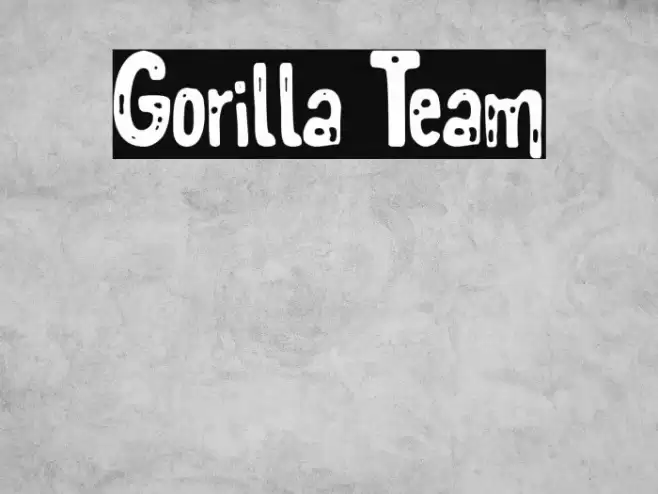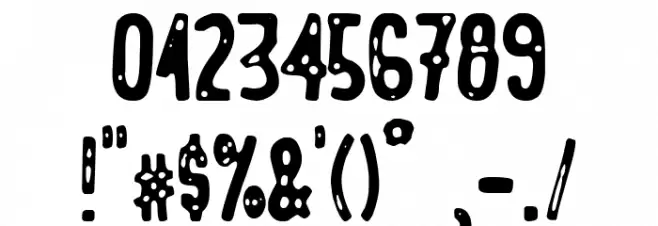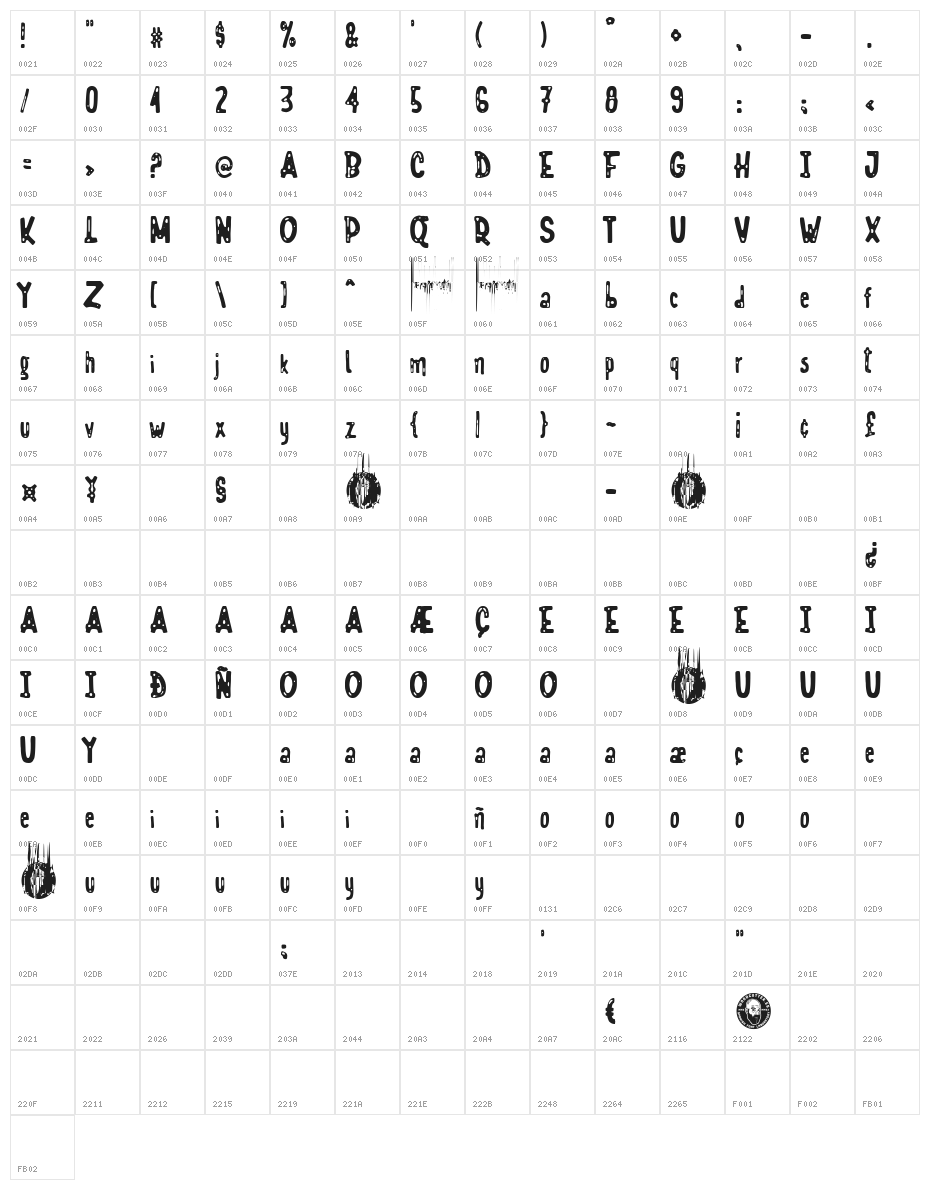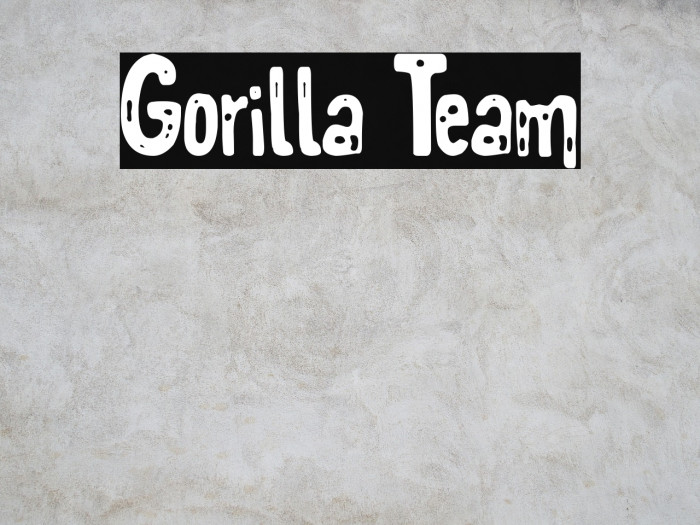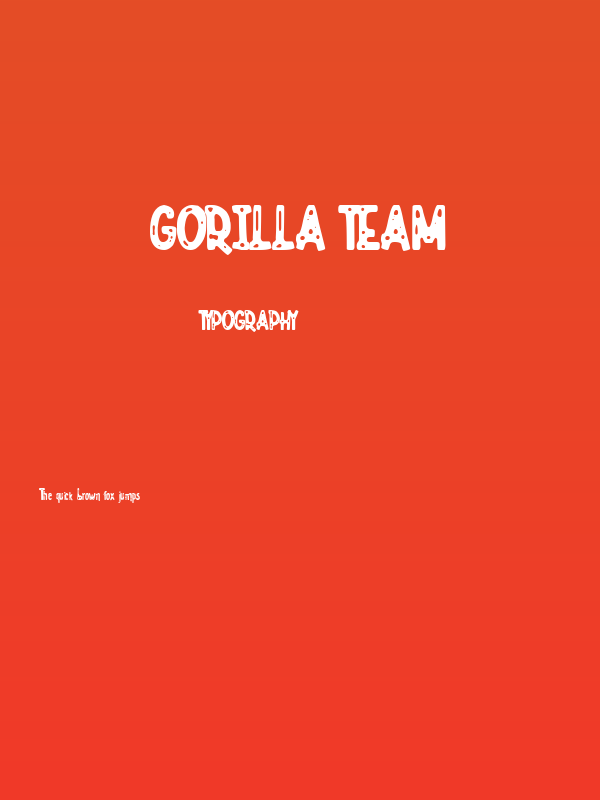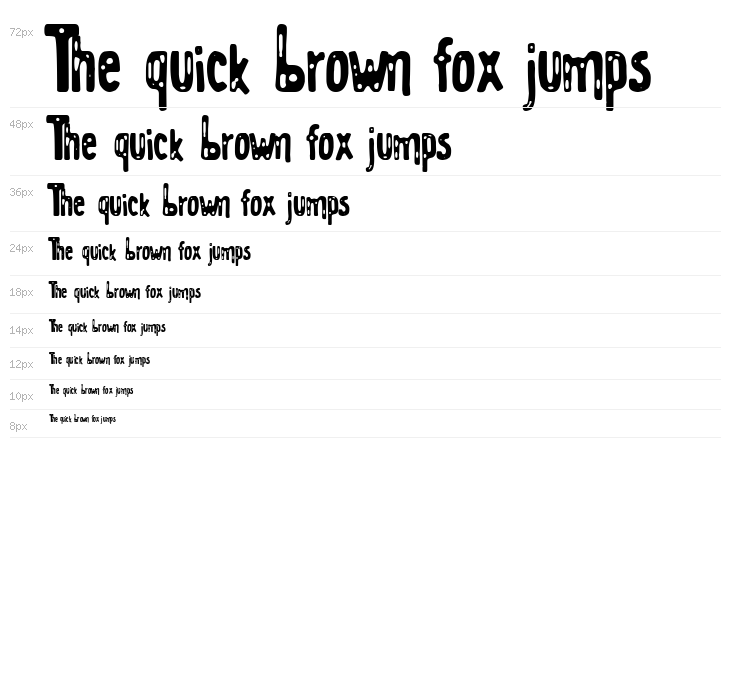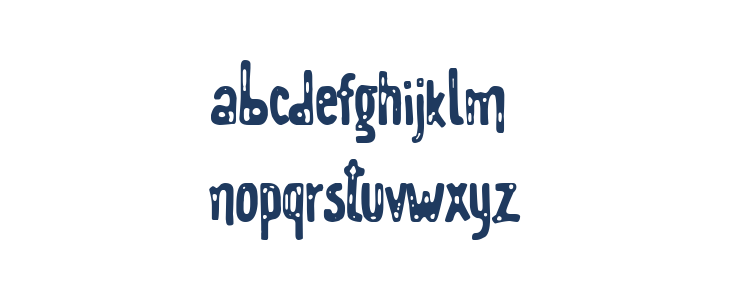
Gorilla Team Font
Gorilla Team Description
This font features a bold and playful design with a unique, organic feel. The letters are characterized by irregular, rounded shapes and a bubbly appearance, giving them a whimsical and fun vibe. The font includes both uppercase and lowercase letters, numbers, and a variety of special characters. The strokes are thick and consistent, with a low contrast between thick and thin parts. The overall style is decorative and eye-catching, making it suitable for creative and informal projects.
A bold, playful font with a whimsical, bubbly design from Cartoon fonts.
- Proposed Projects: Ideal for children's books, playful branding, party invitations, and creative posters.
- Overall Style: Playful, Whimsical, Decorative